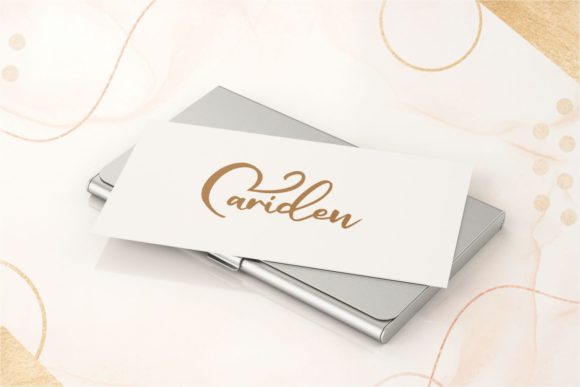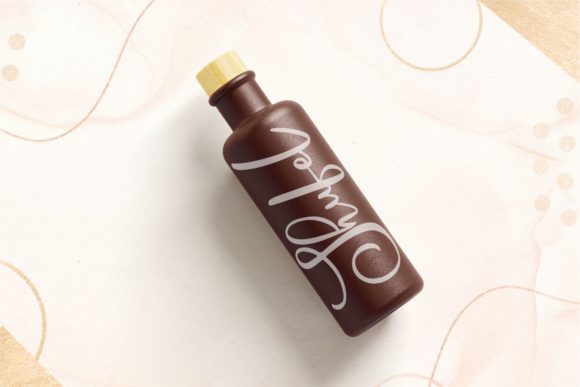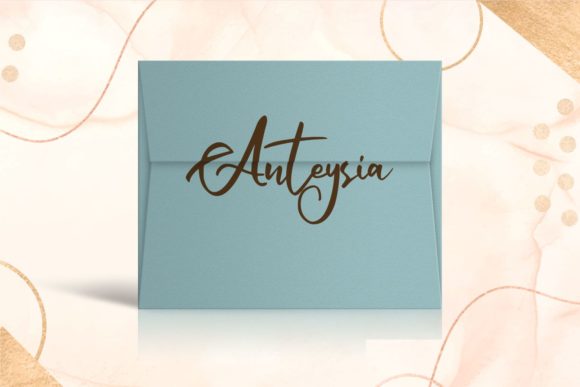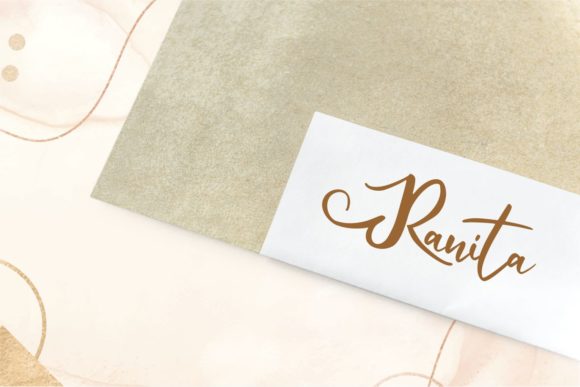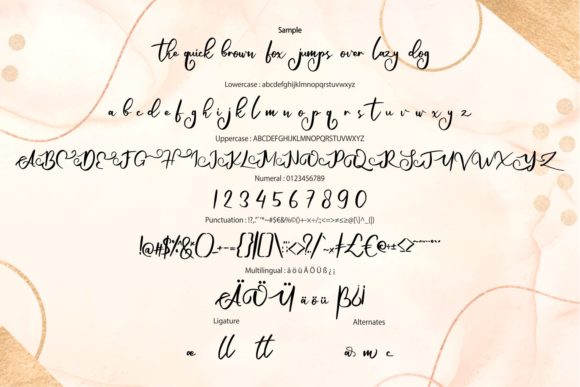
Discover the Elegance of Enivela Font: A Delicate Handwritten Masterpiece
Are you a designer or crafter looking for a font that exudes elegance and sophistication? Look no further than the Enivela Font. This delicate and elegant handwritten font is sure to capture your heart with its distinct and well-rounded letters, making it a masterpiece in the world of typography.
The Unique Charm of Enivela Font
Enivela Font boasts a unique charm that sets it apart from other fonts. Its incredibly versatile style makes it perfect for a wide range of design projects, from wedding invitations and branding materials to social media graphics and digital art. The font’s delicate and elegant appearance is sure to add a touch of sophistication to any design, making it a favorite among designers and crafters.
Key Features of Enivela Font
- Delicate and Elegant: Enivela Font features a delicate and elegant handwritten style that is perfect for designs that require a touch of sophistication.
- Distinct and Well-Rounded Letters: The font’s distinct and well-rounded letters make it easy to read and recognize, while also adding a touch of uniqueness to any design.
- Incredibly Versatile: Enivela Font is incredibly versatile, making it perfect for a wide range of design projects, from print materials to digital art.
How to Use Enivela Font in Your Designs
Using Enivela Font in your designs is easy. Here are a few tips to get you started:
- Pair it with Other Fonts: Enivela Font pairs well with other fonts, making it easy to create unique and interesting typography combinations.
- Experiment with Colors: The font looks great in a variety of colors, so don’t be afraid to experiment and find the perfect color to match your design.
- Use it for Headings and Titles: Enivela Font is perfect for headings and titles, adding a touch of elegance and sophistication to any design.
- Add it to Your Brand Identity: If you’re looking to create a consistent brand identity, consider adding Enivela Font to your typography collection.
Why Designers and Crafters Love Enivela Font
Designers and crafters love Enivela Font for many reasons. Here are a few:
- Unique and Eye-Catching: The font’s unique and eye-catching design makes it perfect for designers and crafters who want to create designs that stand out.
- Elegant and Sophisticated: Enivela Font adds a touch of elegance and sophistication to any design, making it perfect for designers and crafters who want to create high-end designs.
- Versatile: The font’s versatility makes it perfect for a wide range of design projects, from print materials to digital art.
- Easy to Use: Enivela Font is easy to use, making it accessible to designers and crafters of all levels.
In conclusion, Enivela Font is a delicate and elegant handwritten font that is sure to capture your heart. Its distinct and well-rounded letters make it a masterpiece in the world of typography, while its incredibly versatile style makes it perfect for a wide range of design projects. Whether you’re a designer or crafter, Enivela Font is a must-have in your typography collection.
Get Ready to Fall in Love with Enivela Font
So, what are you waiting for? Get ready to fall in love with Enivela Font and take your designs to the next level. With its unique charm, elegant appearance, and versatility, Enivela Font is sure to become a favorite among designers and crafters.